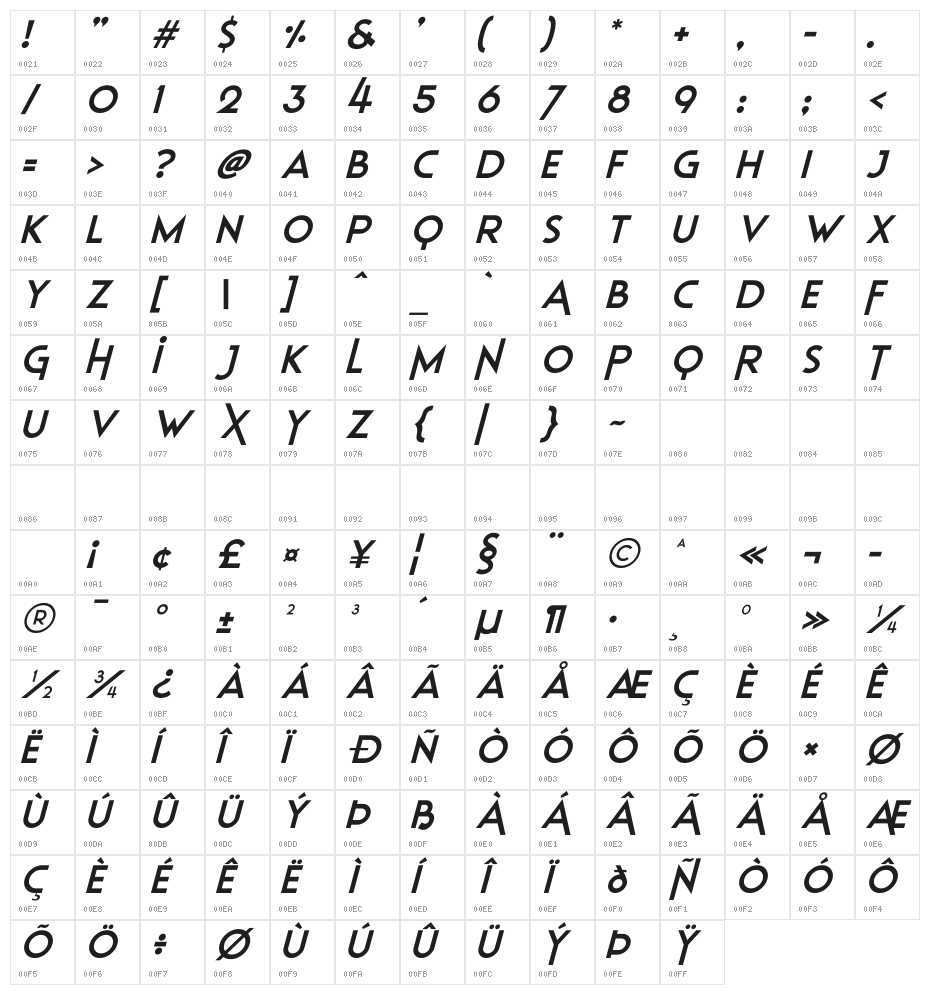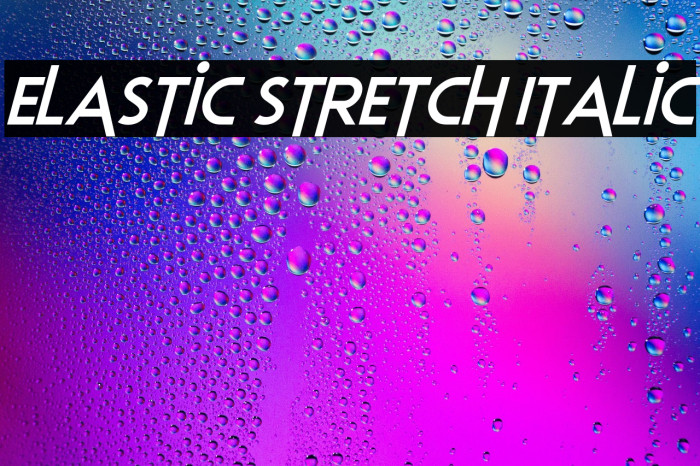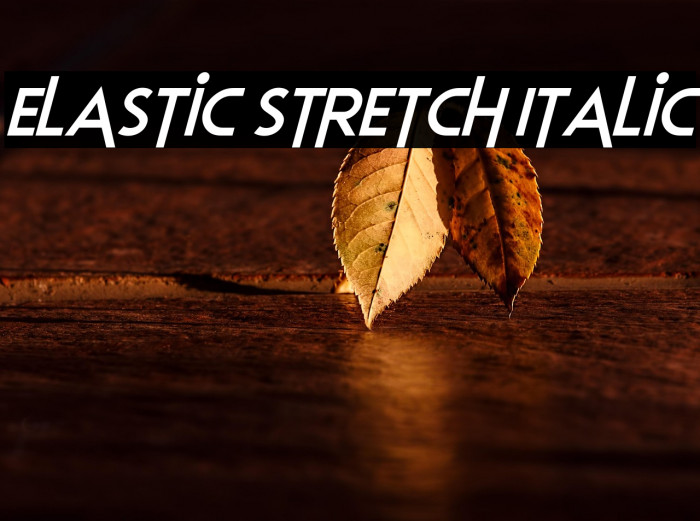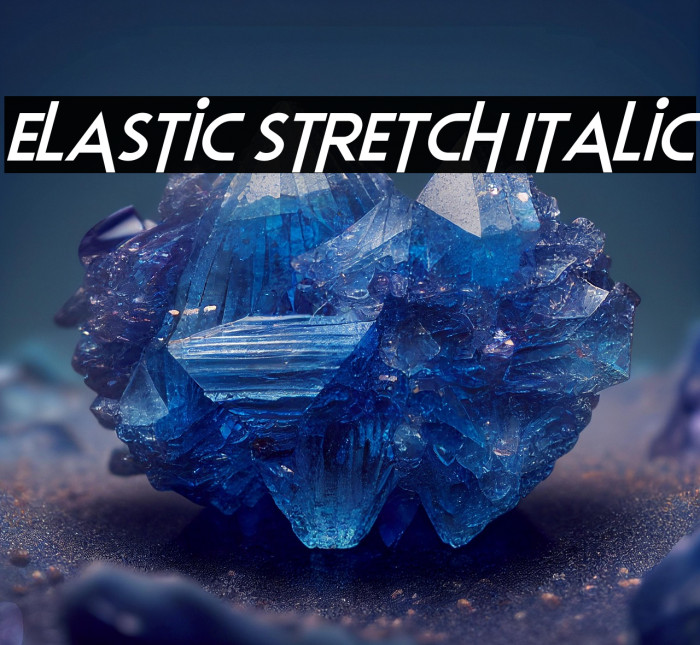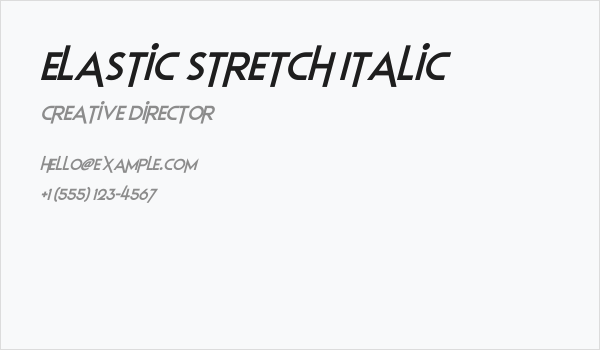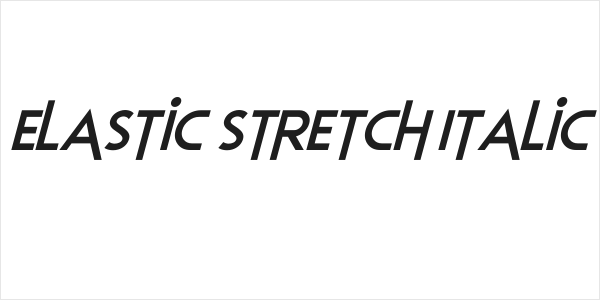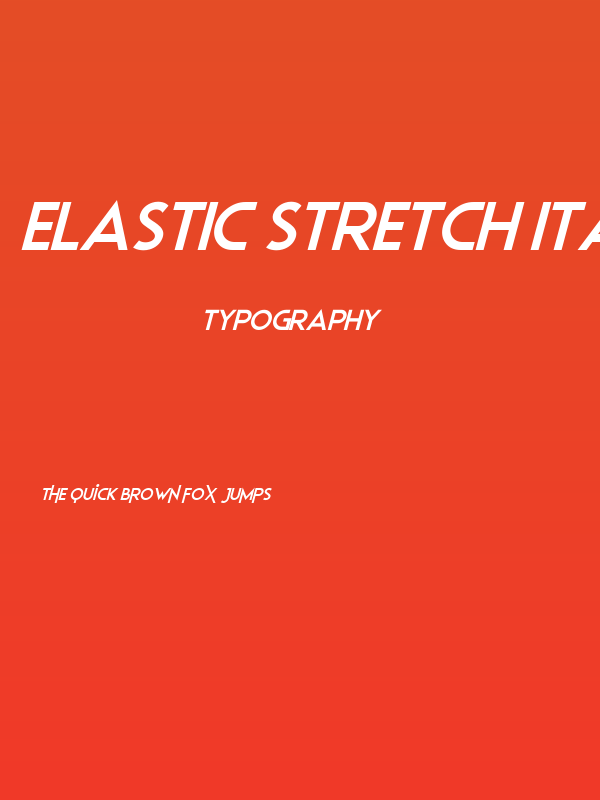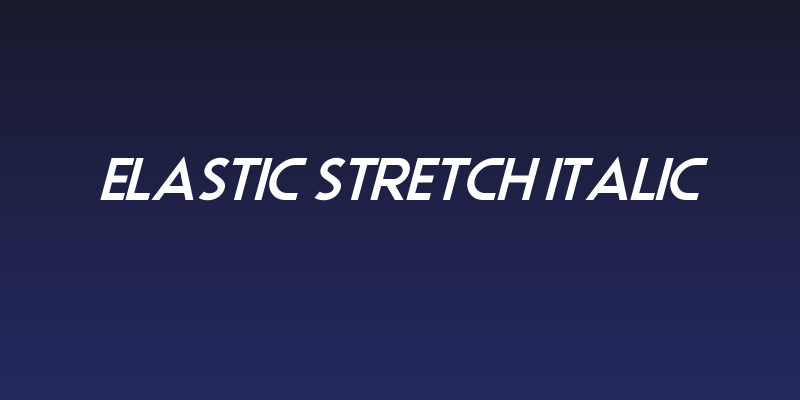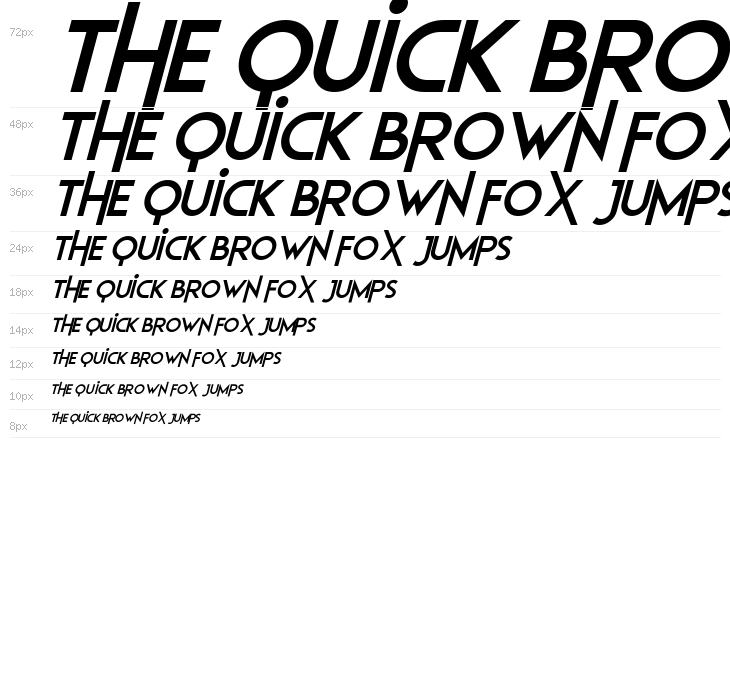
Elastic Stretch Italic Font
Elastic Stretch Italic Description
This font features a dynamic and modern italic style with a distinct forward slant, giving it a sense of motion and energy. The characters are elongated and slightly condensed, creating a sleek and streamlined appearance. The strokes are consistent in weight, providing a uniform look across all characters. The font includes a full set of uppercase and lowercase letters, numerals, and a variety of special characters, making it versatile for various design needs. Its clean lines and contemporary aesthetic make it suitable for projects that require a bold and engaging typeface.
| Proposed Projects | Ideal for branding, advertising, sports team logos, and dynamic headlines. |